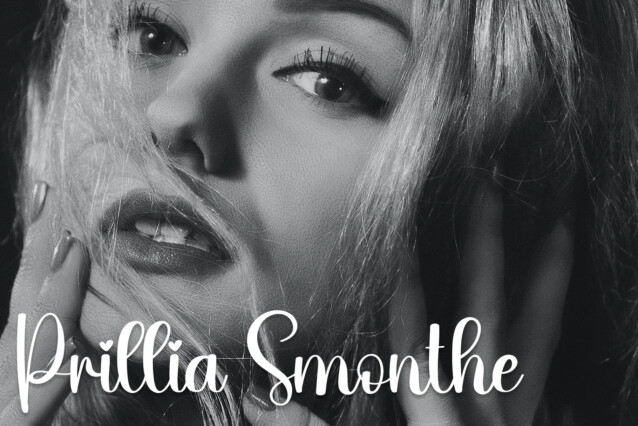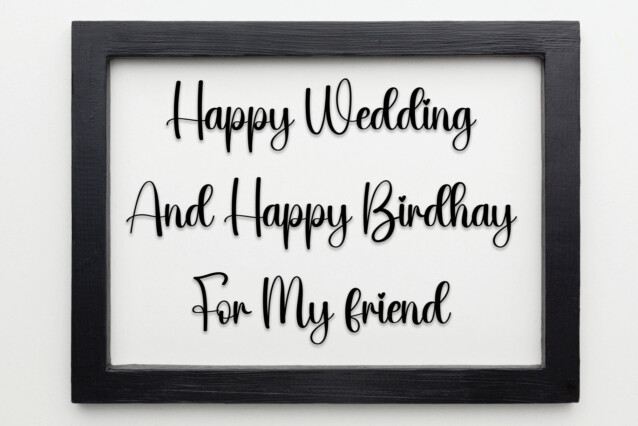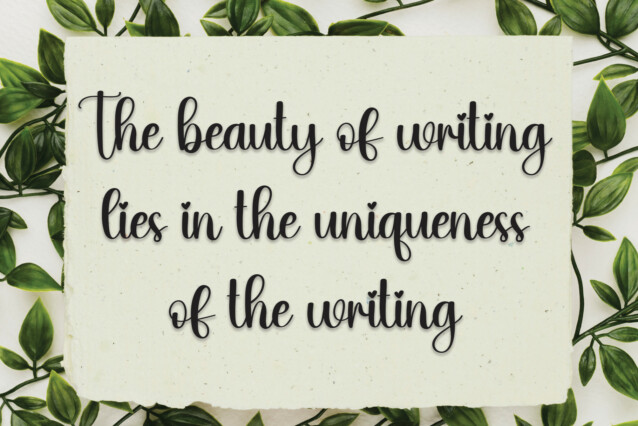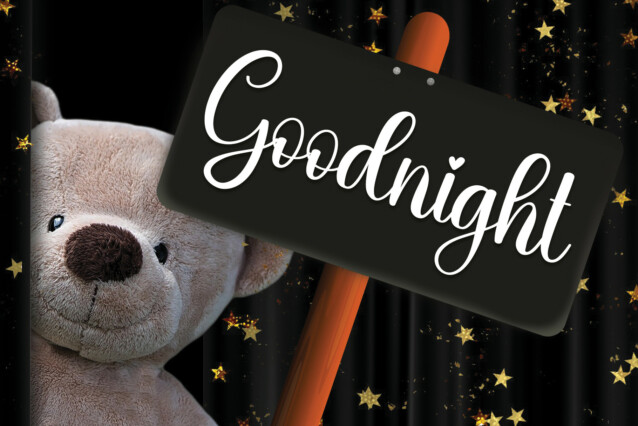
Grandpa Script Font
Grandpa Font’s latest style letters are perfect for wall displays, wedding invitations, social media post logos, advertisements, product packaging, product designs, labels, photography, watermarks, invitations, stationery, and any project that requires a taste for handwriting.